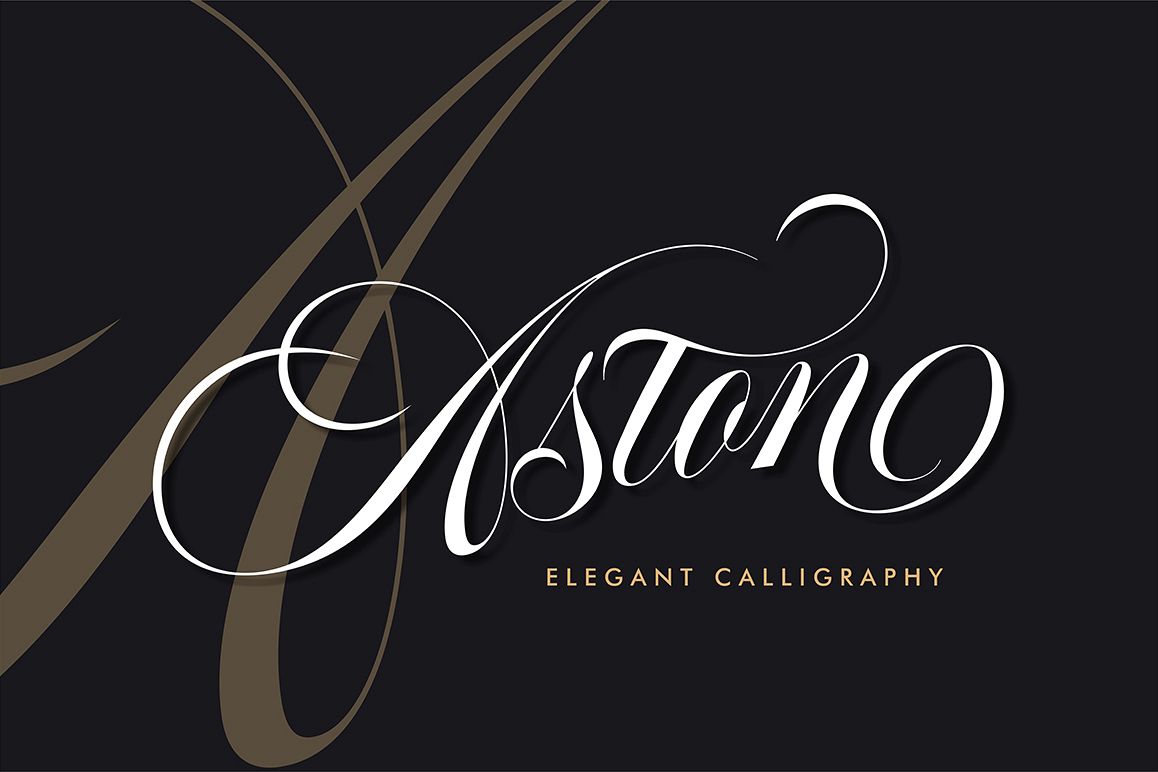
Aston Script Pro
Aston Script
Aston Script Bold
Aston Script Pro
Aston Script Pro - Bold
Aston Script is a calligraphy script font that comes with very beautiful changing characters, a kind of classic decorative copper script with a modern touch, designed with high detail to bring stylish elegance. Aston Script is attractive as a typeface that is smooth, clean, feminine, sensual, glamorous, simple and very easy to read, because there are many fancy letter connections. I also offer a number of viable style alternatives for many letters. The classic style is perfect to be applied in various formal forms such as invitations, labels, restaurant menus, logos, fashion, make up, stationery, novels, magazines, books, greeting / wedding cards, packaging, labels or any type of advertising purpose.
Aston Script has 1330+ glyphs and 1039 alternative characters, including various language support. With OpenType features with alternative styles and elegant ligatures. The OpenType feature does not work automatically, but you can access it manually and for the best results needed for your creativity in combining this Glyph variation.